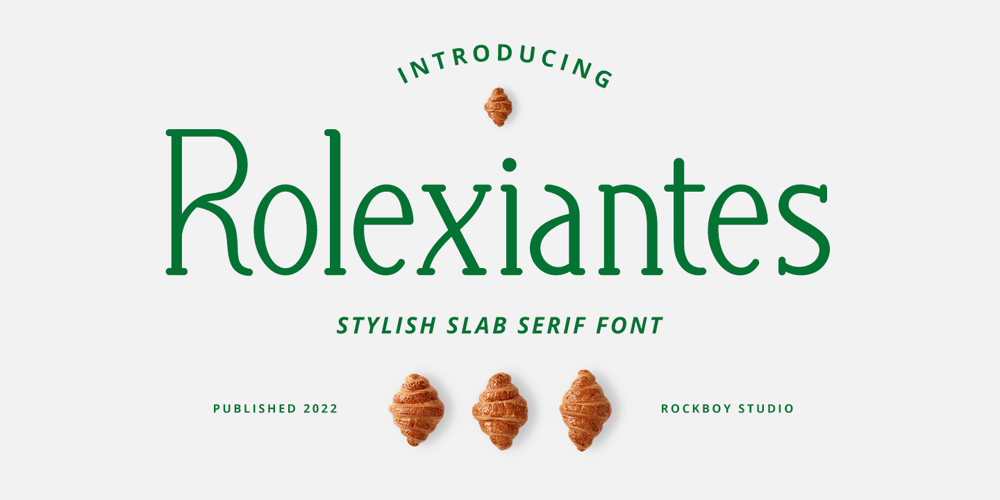
Rolexiantes Font Family was designed by Hayinah and published by Rockboys Studio. Rolexiantes contains 1 styles and family package options. Rolexiantes is fresh serif font. It can easily be matched to an incredibly large set of projects, so add it to your creative ideas and notice how it makes them stand out!